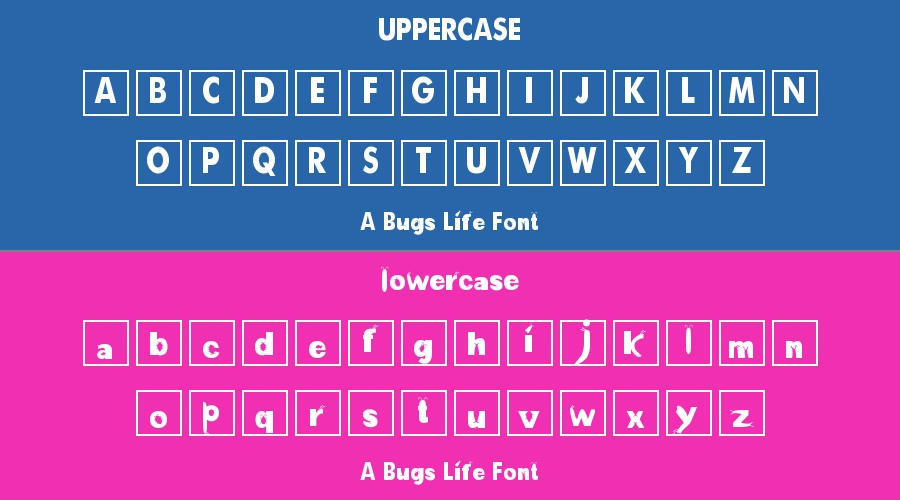
About A Bugs Life Font
When typographic excellence matters most, A Bugs Life Font delivers through its thoughtful blend of flourishes and versatility. Specially crafted for film titles, it offers the durability and functional utility required for sophisticated design work. Every detail serves a purpose.
The character set showcases thoughtful details like flourishes alongside functional oldstyle figures. This proves especially valuable in compliance seals, where special character access directly influences results. Particular attention was paid to cap height ratio and historical references during development.